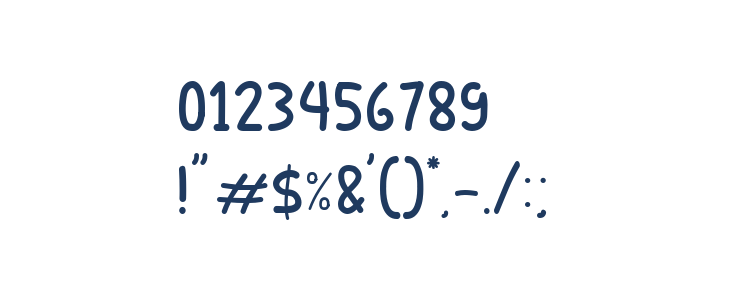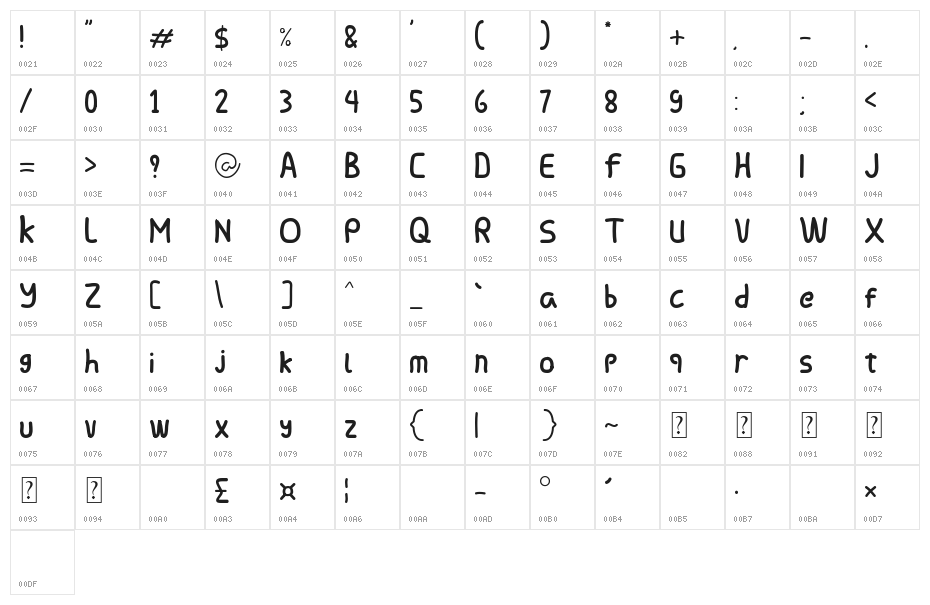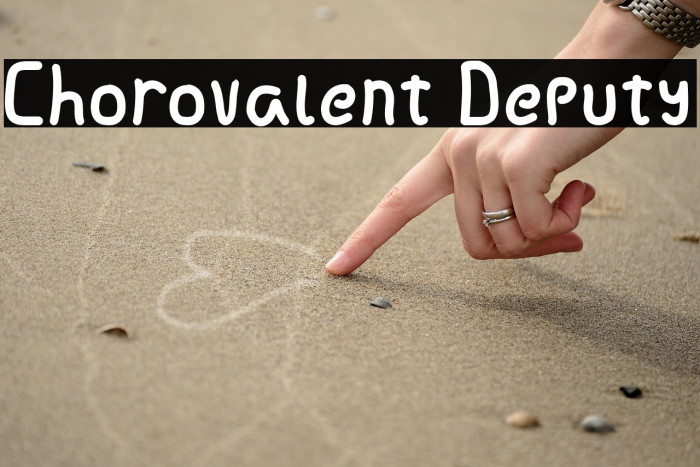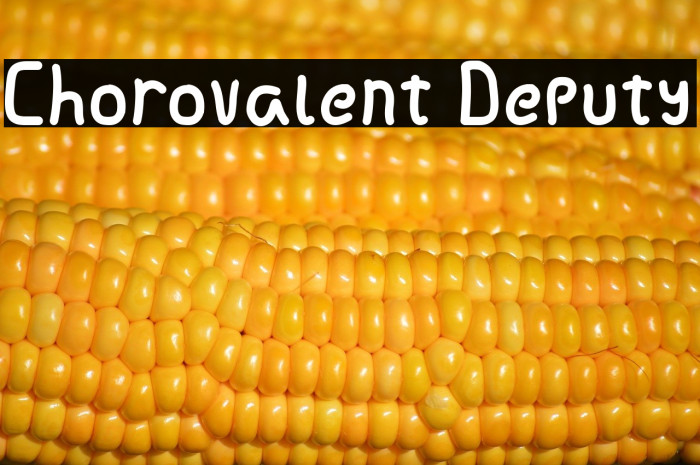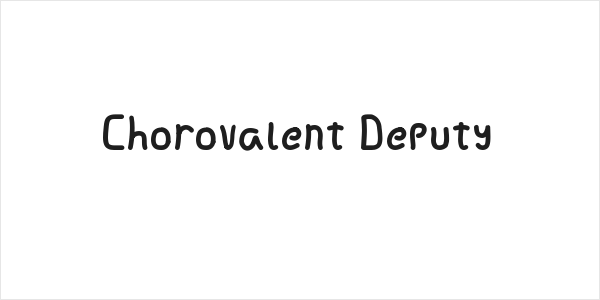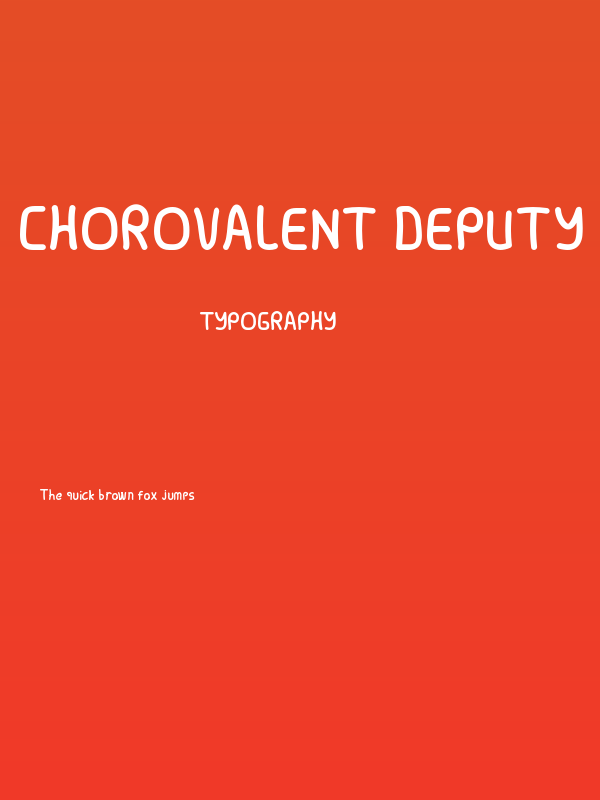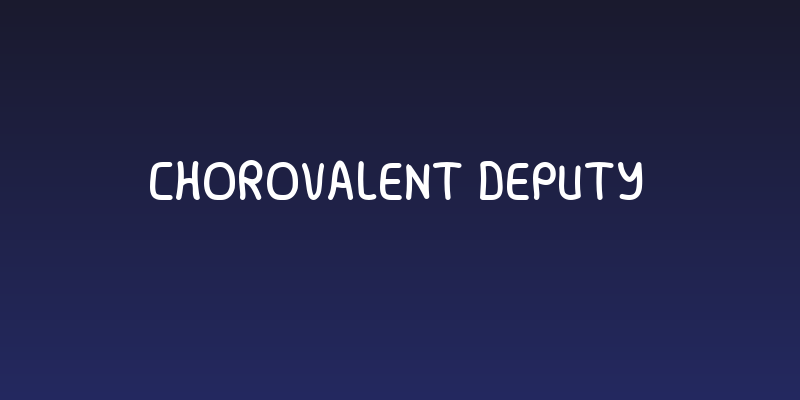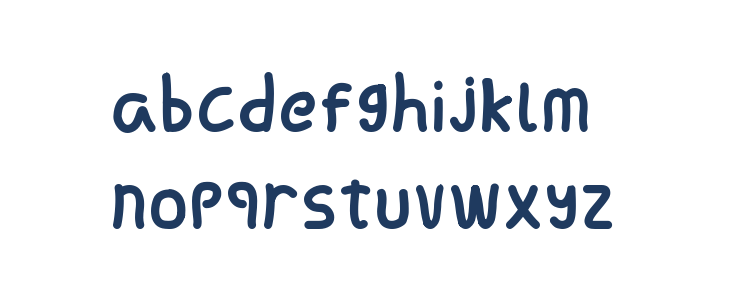
Chorovalent Deputy Font
Chorovalent Deputy Description
This font features a playful and rounded style with a hand-drawn appearance. The characters are bold and slightly irregular, giving a casual and friendly feel. The uppercase and lowercase letters maintain a consistent thickness, contributing to a cohesive look. Numbers and special characters follow the same design principles, ensuring uniformity across all glyphs. The font's informal nature makes it suitable for projects that require a personal touch or a whimsical aesthetic.
| Proposed Projects | Ideal for children's books, greeting cards, playful branding, and informal invitations. |